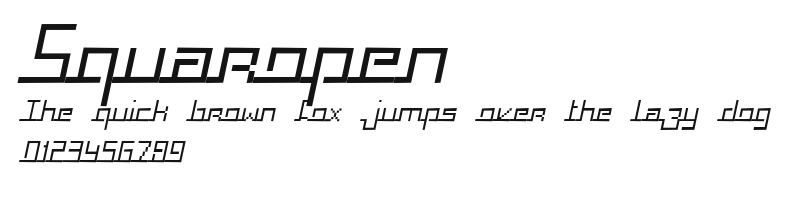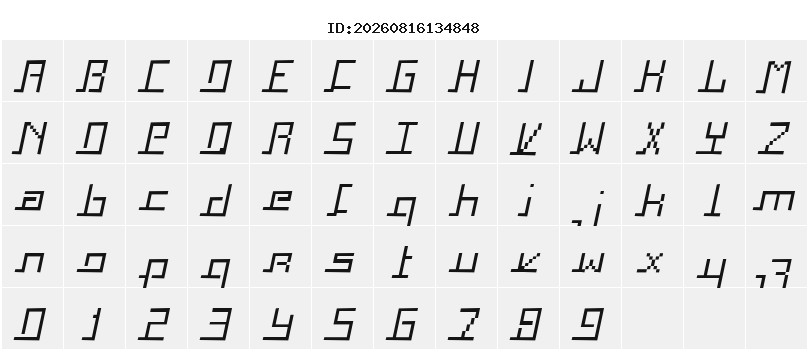
• Font Name: Squaropen
• Font ID: Fontographer 4.7 Squaropen Italic
• Full Font Name: Squaropen Italic
• Version: Fontographer 4.7 30/10/06 FG4M­0000002045
• PostScript Name: SquaropenItalic
• Character Count: 217
• Copyright: Generated by Fontographer 4.7
About Squaropen.ttf
Squaropen.ttf is a modern, elegant sans-serif font designed for ultimate readability and visual harmony. Perfect for branding, headlines, web design, and print materials.